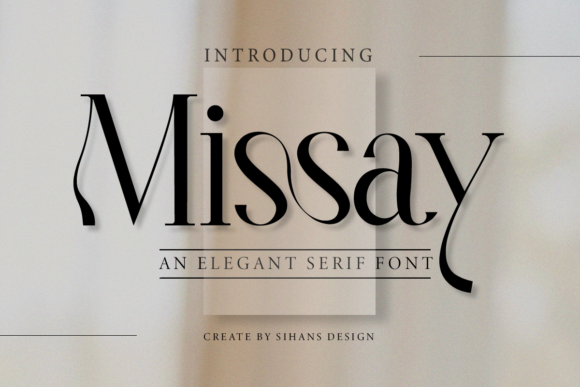
**Missay: The Epitome of Elegance for Fashion Brands**
Unleash the power of Missay, a breathtaking serif font that embodies the essence of sophistication and style. Specifically crafted to elevate the presence of fashion brands, Missay seamlessly blends timeless aesthetics with modern functionality, empowering you to create captivating designs that leave an indelible mark.
Immerse yourself in the beauty of its graceful curves and refined strokes, meticulously designed to exude an air of sophistication and elegance. Missay's classic yet contemporary spirit effortlessly transcends time, making it the perfect choice for brands seeking to establish a lasting impression.
Beyond its visual allure, Missay offers unparalleled versatility, effortlessly adapting to a myriad of creative projects. Whether you're designing eye-catching logos, captivating marketing materials, or alluring social media posts, Missay empowers you to convey your brand's message with unparalleled impact.
Experience the ease and joy of using Missay, as its simple and intuitive nature ensures a seamless creative process. Mix and match its characters with your diverse design elements to create stunning visuals that will captivate your audience.
Unleash the full potential of Missay's PUA encoding, granting you effortless access to a world of glyphs and swashes. Intricately crafted to enhance your designs, these elements add an extra layer of elegance and charm, making your creations truly exceptional.
Embrace the transformative power of Missay and witness your fashion brand soar to new heights. Its timeless beauty, exceptional versatility, and effortless usability combine to create a font that is not merely a design tool but an investment in the success of your brand.